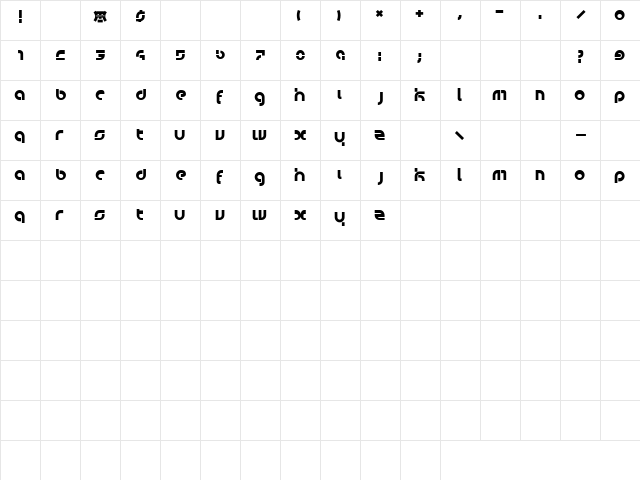
bauwerck Regular
Design Context for bauwerck Typeface
bauwerck is a composed and adaptable typeface that performs quietly and consistently across a wide range of design contexts.